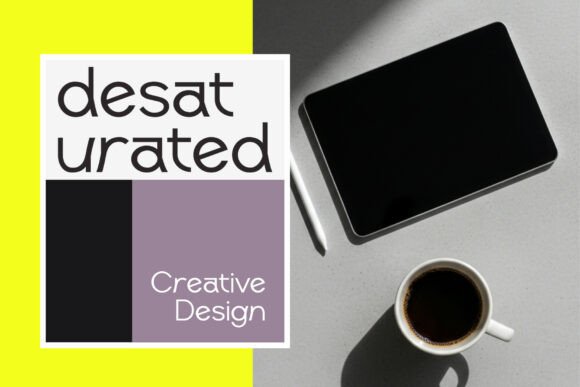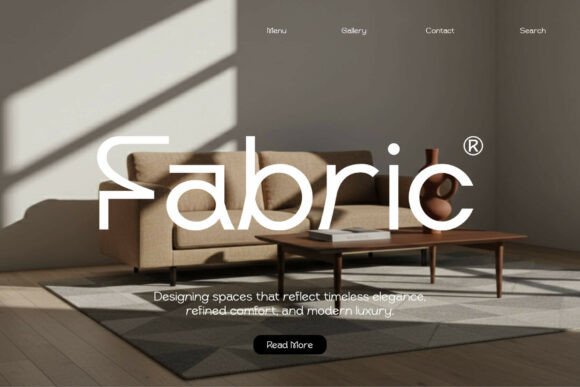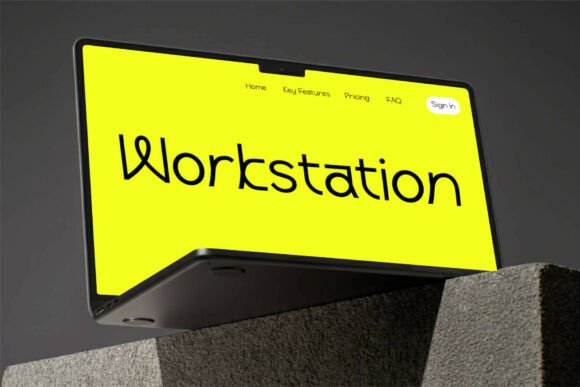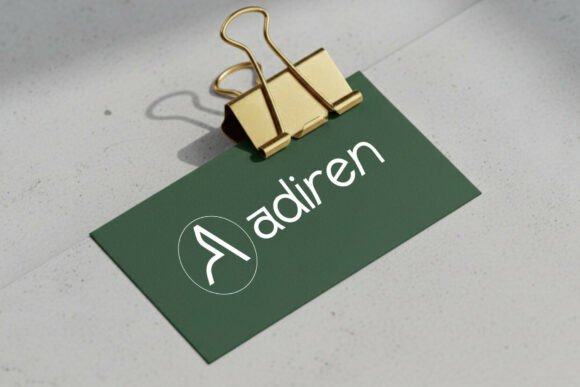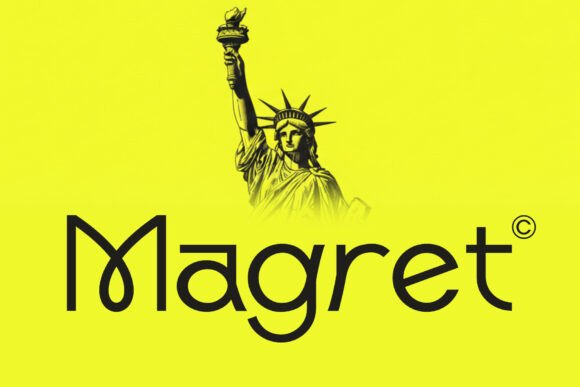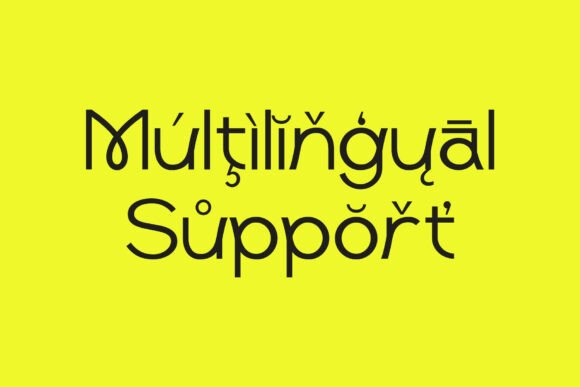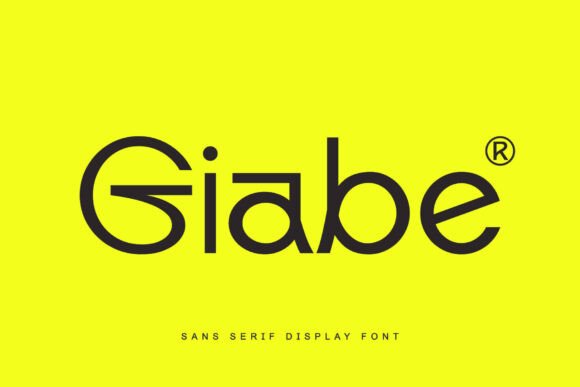
Introducing Giabe Font: The Ultimate Modern Sans Serif Display Font
In the world of typography, a font can make all the difference in the success of a design project. For designers and crafters looking for a modern, clean, and confident font, Giabe Font is an excellent choice. Designed with a contemporary character, Giabe is a sans serif display font that is perfect for a wide range of applications, from branding and advertising to digital interfaces and editorial layouts.
Clean, Confident, and Contemporary Design
Giabe Font boasts a clean and confident design, making it ideal for designers who want to create a strong visual impact. Its smooth curves, balanced proportions, and distinctive geometric touch give it a unique and modern look that is sure to grab attention. The font’s contemporary character makes it perfect for designs that aim to feel fresh, bold, and forward-thinking.
Versatility Across Print and Screen
One of the standout features of Giabe Font is its versatility. It works beautifully in a variety of applications, including headlines, logos, product showcases, and digital interfaces. Whether you’re designing a print brochure, a website, or a mobile app, Giabe Font is a great choice. Its minimalist yet expressive style makes it perfect for designs that require a professional and polished look.
Giabe Font is an excellent choice for designers and crafters who want to create modern and sleek visual content. Its clean and confident design makes it perfect for:
- Branding and advertising
- Creative studios and interior design
- Technology projects and editorial layouts
- Posters and websites
- UI/UX design and modern marketing materials
Key Features of Giabe Font
So, what makes Giabe Font so special? Here are some of its key features:
- Smooth curves: Giabe Font features smooth curves that give it a modern and sleek look.
- Balanced proportions: The font’s balanced proportions make it easy to read and visually appealing.
- Distinctive geometric touch: Giabe Font’s distinctive geometric touch gives it a unique and contemporary character.
- Highly readable: Despite its modern design, Giabe Font is highly readable, making it perfect for body text and headlines.
How to Use Giabe Font
Giabe Font is easy to use and can be applied to a wide range of design projects. Here are some tips on how to get the most out of this versatile font:
- Use it for headlines: Giabe Font is perfect for headlines and titles, where its bold and confident design can make a strong visual impact.
- Pair it with other fonts: Giabe Font works well with other fonts, making it easy to create a unique and visually appealing typography combination.
- Experiment with different sizes: Giabe Font is highly versatile and can be used at different sizes, from small body text to large headlines.
In conclusion, Giabe Font is an excellent choice for designers and crafters looking for a modern, clean, and confident font. Its versatility, readability, and unique design make it perfect for a wide range of applications, from branding and advertising to digital interfaces and editorial layouts. Whether you’re building a modern brand identity or crafting sleek visual content, Giabe Font brings clarity, personality, and professional polish to your typography.